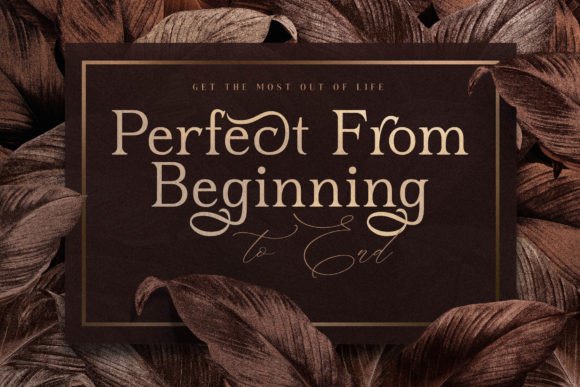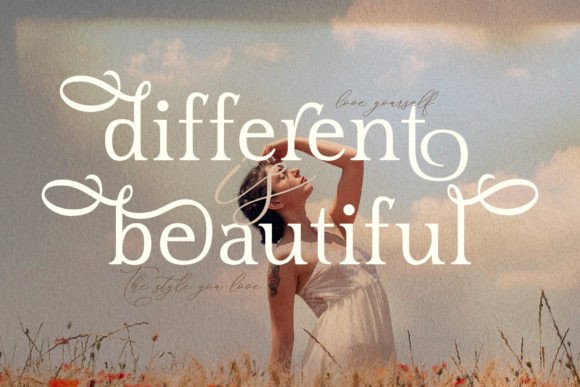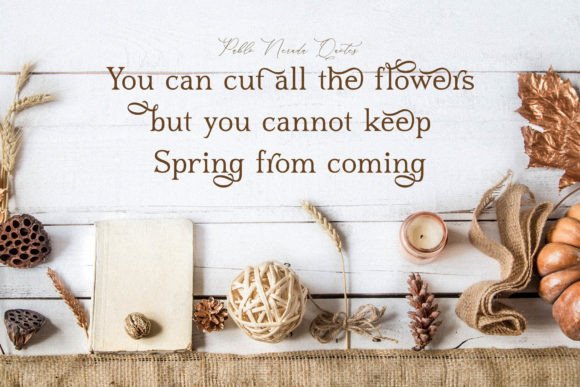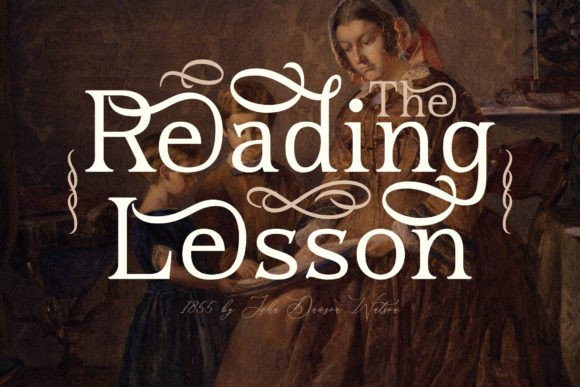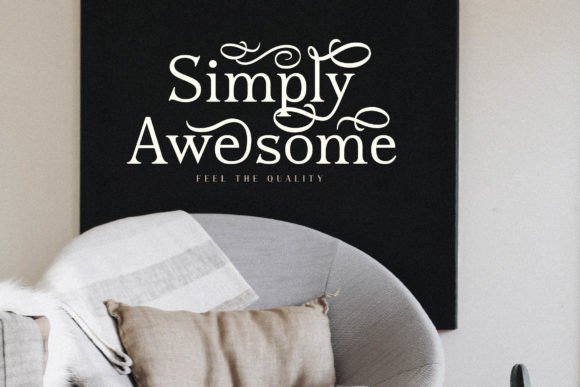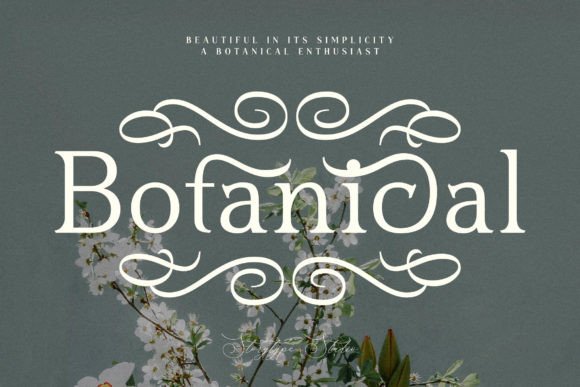
Introducing Blusvery Font: The Epitome of Modern Elegance
In the realm of typography, few fonts manage to strike a balance between modernity and classic sophistication. Blusvery Font, however, achieves this delicate equilibrium with remarkable finesse. This serif typeface boasts a unique style that exudes a modern look, making it an ideal choice for designers and crafters seeking to imbue their projects with an air of elegance and luxury.
The Distinctive Characteristics of Blusvery Font
Blusvery Font is distinguished by its meticulous design, which combines the traditional elegance of serif fonts with a contemporary twist. The result is a typeface that is not only visually appealing but also versatile, capable of elevating a wide range of design projects. Its letters are crafted with precision, featuring subtle curves and lines that contribute to its modern aesthetic.
One of the standout features of Blusvery Font is its versatility. It is perfectly suited for a variety of design applications, including:
- Elegant & Luxury Logos: Create a lasting impression with a logo that embodies sophistication and refinement.
- Book or Movie Title Design: Add a touch of glamour to your titles, making them instantly captivating.
- Fashion Brands: Elevate your brand’s visual identity with a font that speaks to luxury and style.
- Magazines: Enhance the readability and aesthetic appeal of your magazine with a font that is both classic and modern.
- Clothes: For designers looking to create brand identities or product labels that stand out, Blusvery offers a sophisticated solution.
- Lettering and Quotes: Bring a touch of elegance to your lettering projects and quotes, making them more impactful.
Why Choose Blusvery Font?
Choosing Blusvery Font for your design projects comes with numerous benefits:
- Unique Style: Stand out from the crowd with a font that has its own distinct character.
- Elegance and Sophistication: Infuse your designs with a sense of luxury and refinement.
- Modern Appeal: Despite its classic roots, Blusvery Font has a modern look that will appeal to contemporary tastes.
- Readability: Serif fonts like Blusvery are known for their readability, making them suitable for body text as well as headlines.
Tips for Using Blusvery Font Effectively
To maximize the impact of Blusvery Font in your designs, consider the following tips:
- Pair with Complementary Fonts: For projects that require additional typography, choose fonts that complement Blusvery’s modern yet classic feel.
- Adjust Weight and Size: Experiment with different weights and sizes to create visual hierarchy and emphasis.
- Consider Color: The elegance of Blusvery Font can be further enhanced with a thoughtful choice of color that aligns with your brand or project’s aesthetic.
Blusvery Font represents a valuable addition to the toolkit of designers and crafters aiming to create visually stunning and sophisticated designs. Its blend of modernity and classic elegance, coupled with its versatility, makes it an excellent choice for a wide array of projects. Whether you’re designing a luxury logo, a fashion brand’s visual identity, or simply looking for a font that brings a touch of class to your work, Blusvery Font is sure to meet your needs and exceed your expectations.
Discover the potential of Blusvery Font in your next design project and experience firsthand the impact of typography that combines the best of both worlds: timeless elegance and modern flair.